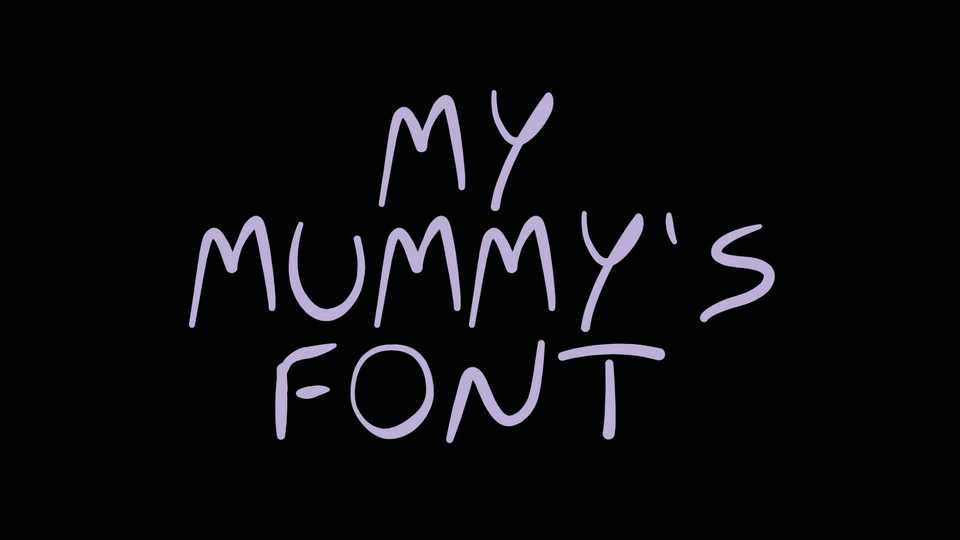
Download My Mummy’s font, a casual typeface based on personal handwriting. With My Mummy’s font you can create posters, web graphics, t-shirts, love letters, logos and more.